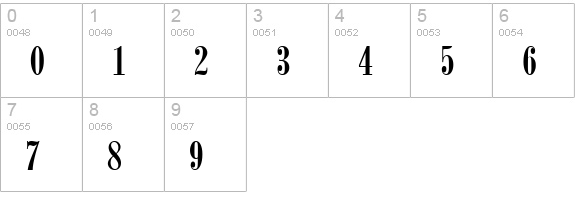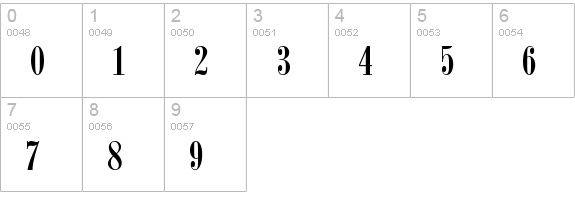
Update 537 Normal Font Details
Update 537 Normal is the standard, neutral variant in the Update typeface family \xE2\x80\x94 well suited to general body text, paragraphs, and standard typographic work.
Update 537 Normal font is a versatile and visually appealing typeface that is perfect for a wide range of design projects. This updated version offers enhanced readability and improved letterforms, making it an even more valuable tool for designers, creatives, and typographers. With its clean and modern design, Update 537 Normal font adds a touch of sophistication to any project. Whether you're working on a website, a brochure, a logo, or any other design project, this font will help you create a professional and polished look. One of the best things about Update 537 Normal font is that it is freely available to download at FontsMarket.com. This means that you can easily access and use this font without any cost. Whether you're a professional designer or someone who simply loves experimenting with typography, this free font is a must-have in your collection. The Update 537 Normal font offers a wide range of characters, including uppercase and lowercase letters, numbers, punctuation marks, and special symbols. This versatility makes it suitable for a variety of design styles and purposes. In addition to its aesthetic appeal, Update 537 Normal font also excels in terms of legibility. Its clear and well-defined letterforms ensure that your text is easily readable, even at smaller sizes. This makes it an excellent choice for both print and digital projects. Overall, Update 537 Normal font is a versatile, visually appealing, and freely available typeface that will elevate your design projects. Download it today at FontsMarket.com and unlock its potential for your next creative endeavor.